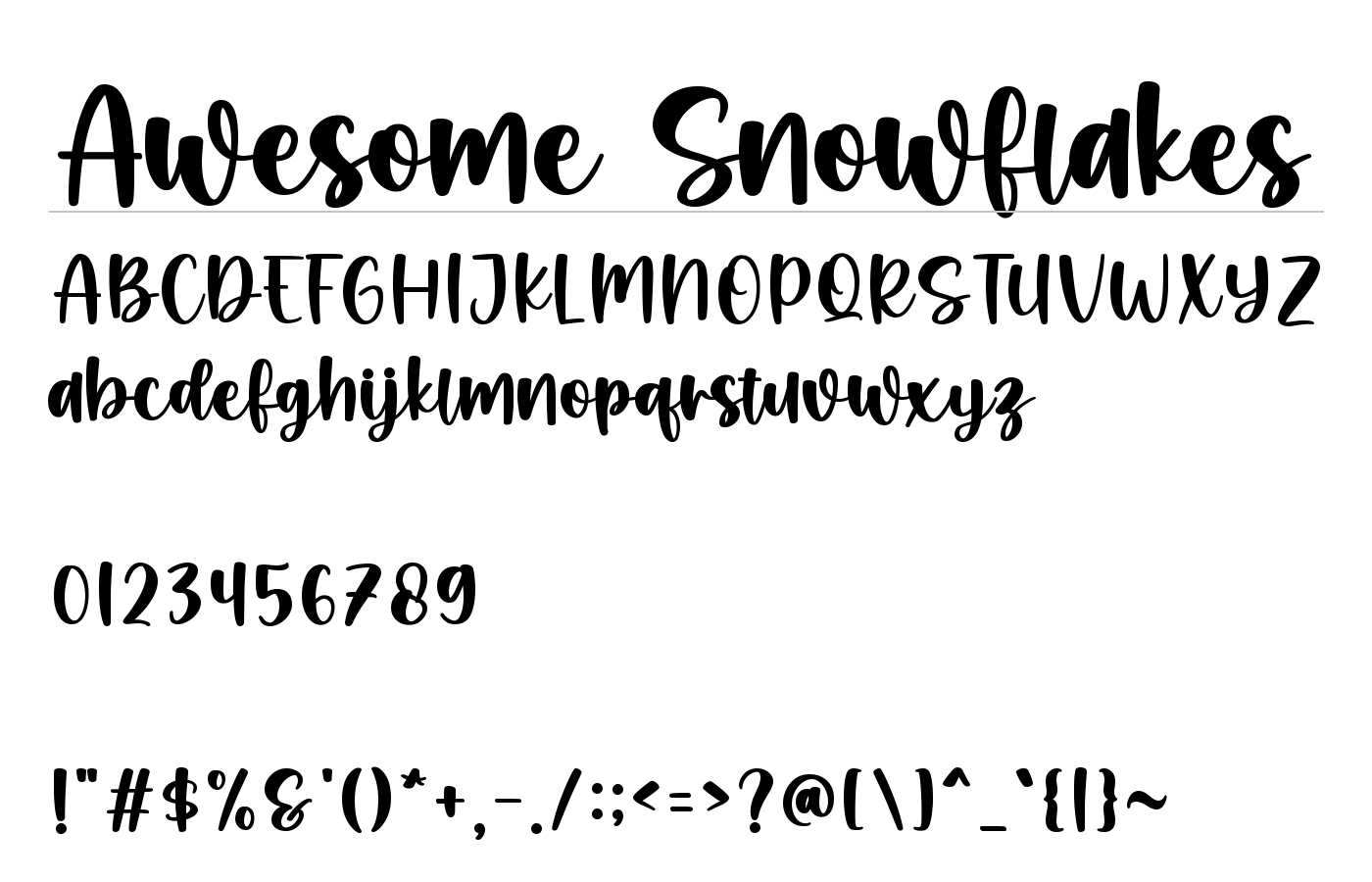
Awesome Snowflakes is a playful and lively script font with a hand-drawn feel, featuring smooth, rounded strokes and a bold weight that makes it both friendly and eye-catching. Its casual yet polished style works beautifully for festive designs, greeting cards, and branding that seeks a warm, approachable vibe. This font shines in headlines and decorative uses where personality and charm are needed.
Awesome Snowflakes Font
About Awesome Snowflakes Font